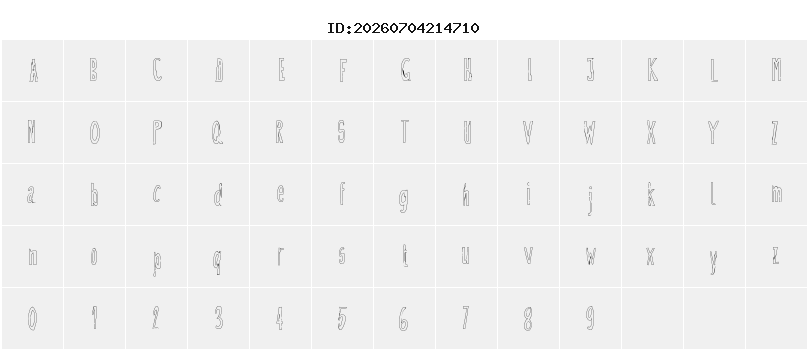
• Font Name: Doozy
• Full Font Name: Doozy
About Doozy.ttf
Doozy.ttf is a modern, elegant sans-serif font designed for ultimate readability and visual harmony. Perfect for branding, headlines, web design, and print materials.